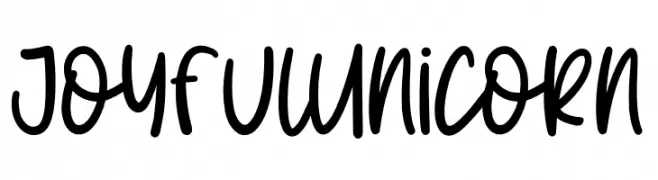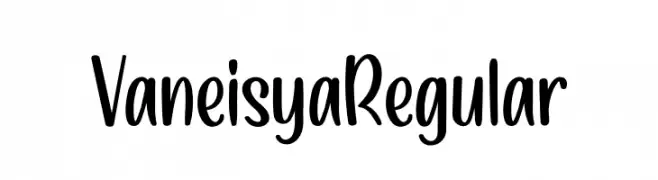
A playful, handwritten font with bold, smooth strokes and a whimsical style.
A bold, handwritten font with playful, rounded strokes.
A playful and elegant handwritten font with fluid, flowing letterforms.
A playful, casual handwritten font with smooth, flowing lines.
A bold, handwritten font with a lively and energetic style.
A playful, casual handwritten font with smooth, rounded edges.
A playful, bold handwritten font with a casual and energetic style.
A playful, bold handwritten font with smooth, rounded edges.
A playful, handwritten cursive font with smooth, flowing curves.
A bold, expressive handwritten font with fluid strokes and dynamic style.